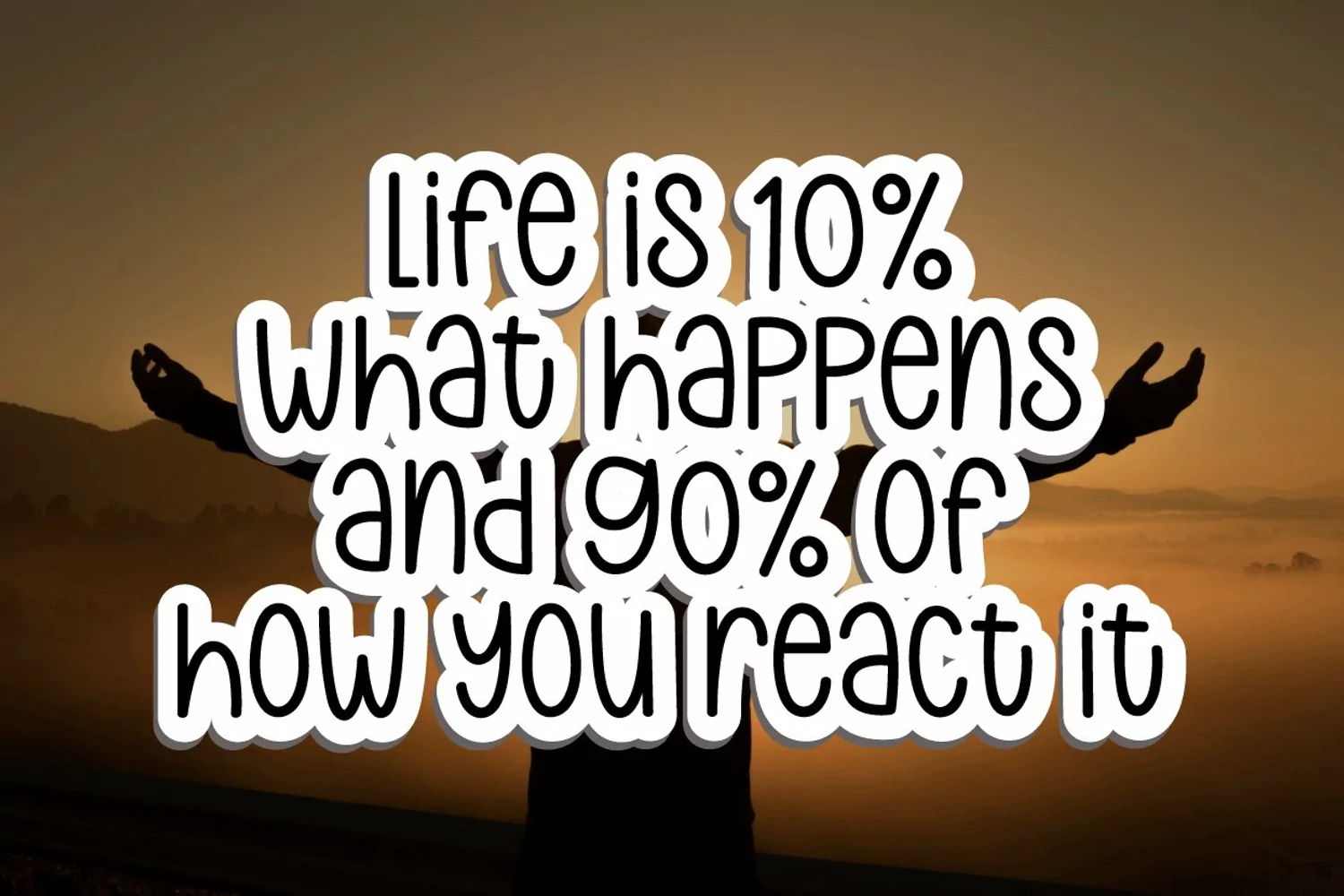
Absolute Vision Handwritten
Palm Summer is a simple and interesting handwritten font. Its friendly feel makes this font incredibly versatile, fitting a wide range of contexts. It looks stunning on thank you cards, quotes, greeting cards, logos, business cards and every other design which needs of a art. Add it to your creative ideas and notice how it makes them stand out!